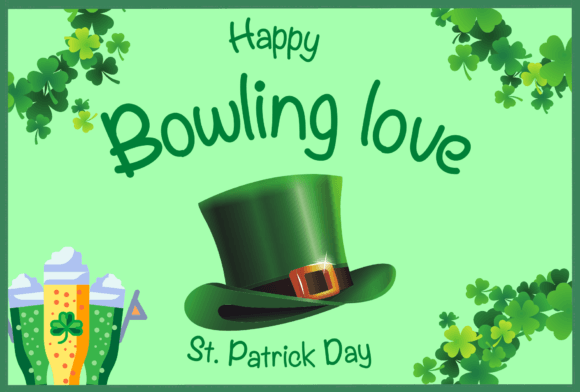
Bowling Love Font: The Ultimate Guide to This Fun and Cute Handwritten Font
Are you looking for a font that can add a touch of personality and whimsy to your designs? Look no further than the Bowling Love Font! This fun and cute handwritten font is perfect for crafts, digital design, presentations, and making greeting cards. In this article, we’ll dive into the world of Bowling Love Font and explore its features, uses, and benefits.
What is Bowling Love Font?
Bowling Love Font is a handwritten font designed to bring a smile to your face. Its playful and charming style makes it perfect for a wide range of projects, from DIY crafts to professional designs. Whether you’re creating a birthday card, a presentation, or a social media post, Bowling Love Font is sure to add a touch of personality and fun.
Features of Bowling Love Font
So, what makes Bowling Love Font so special? Here are some of its key features:
- Handwritten style: Bowling Love Font has a beautiful, handwritten style that’s perfect for adding a personal touch to your designs.
- Playful and charming: This font is designed to be fun and playful, making it perfect for projects that require a lighthearted touch.
- Versatile: Bowling Love Font can be used for a wide range of projects, from crafts to digital design, presentations, and more.
- Easy to read: Despite its playful style, Bowling Love Font is easy to read, making it perfect for body text and headings.
Uses of Bowling Love Font
So, what can you use Bowling Love Font for? The possibilities are endless! Here are some ideas to get you started:
- Crafts: Use Bowling Love Font to add a personal touch to your DIY crafts, such as scrapbooking, card making, and more.
- Digital design: Add a playful touch to your digital designs, such as social media graphics, blog posts, and more.
- Presentations: Use Bowling Love Font to add some personality to your presentations, making them more engaging and fun.
- Greeting cards: Create beautiful and unique greeting cards for special occasions, such as birthdays, holidays, and more.
Benefits of Using Bowling Love Font
So, why should you use Bowling Love Font? Here are some benefits:
- Adds personality: Bowling Love Font adds a touch of personality and whimsy to your designs, making them more engaging and fun.
- Versatile: This font can be used for a wide range of projects, making it a great addition to your font library.
- Unique: This font is sure to make your designs stand out, thanks to its unique and playful style.
Tips and Tricks
Here are some tips and tricks to get the most out of Bowling Love Font:
- Use it for headings: Bowling Love Font is perfect for headings and titles, adding a touch of personality and whimsy.
- Mix and match: Combine Bowling Love Font with other fonts for a unique and interesting look.
- Experiment with colors: Try out different colors and color combinations to add an extra layer of fun to your designs.
In conclusion, Bowling Love Font is a fun and cute handwritten font that’s perfect for adding a touch of personality and whimsy to your designs. With its playful and charming style, versatility, and ease of use, it’s sure to become your go-to font for all your design needs. So why not give it a try and see the fun and creative results for yourself?
- Q: What is Bowling Love Font?
- A: Bowling Love Font is a handwritten font designed to bring a smile to your face.